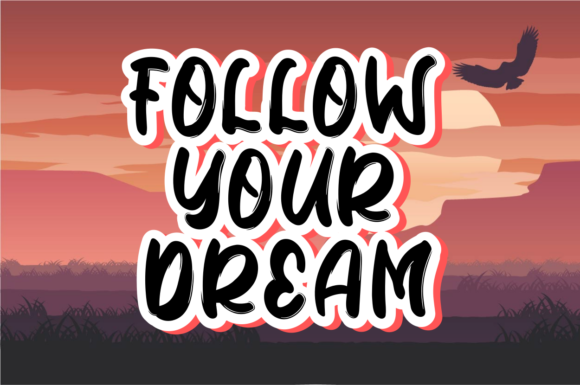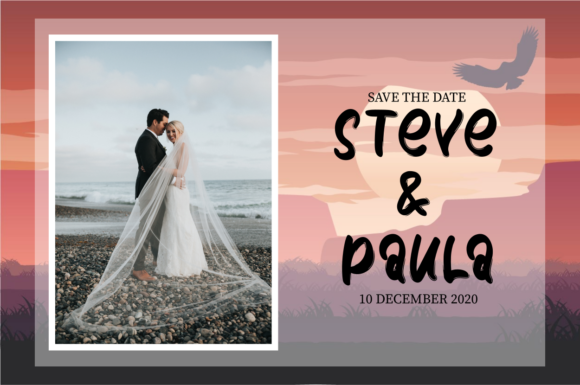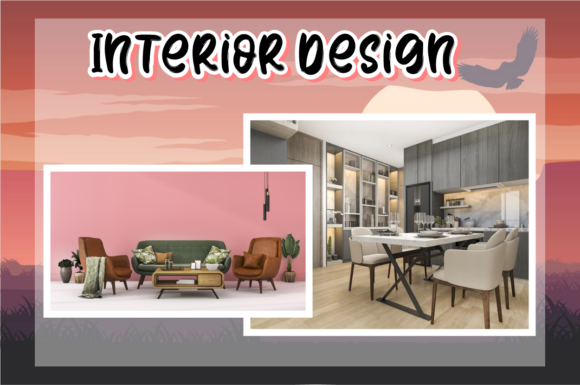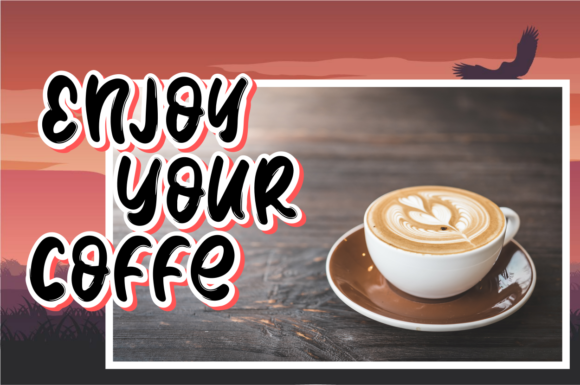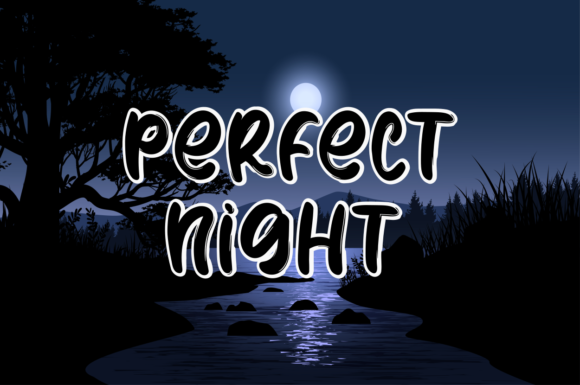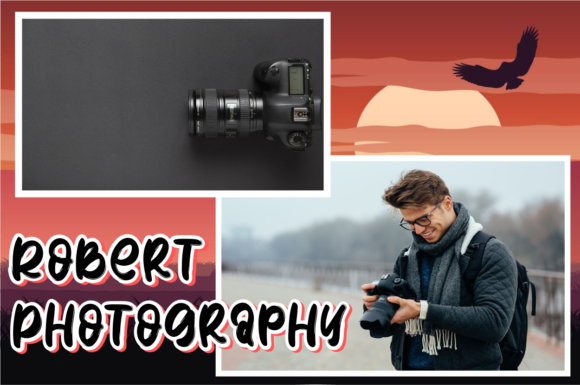
Discover the Charm of Good Cowboy Font: A Cute and Friendly Display Font
Are you looking for a font that can add a touch of youthful energy to your designs? Look no further than Good Cowboy, a cute and friendly display font that’s sure to make your projects come alive. In this article, we’ll explore the features and benefits of Good Cowboy, and show you how to make the most of this versatile and charming font.
What is Good Cowboy Font?
Good Cowboy is a display font that’s designed to bring a sense of fun and playfulness to your designs. With its chunky lettering and incredibly youthful feel, this font is perfect for projects that require a touch of whimsy and personality. Whether you’re working on a logo, a poster, or a social media graphic, Good Cowboy is sure to make a statement.
Key Features of Good Cowboy Font
- Cute and Friendly Design: Good Cowboy has a unique and charming design that’s sure to capture the attention of your audience. Its friendly and approachable feel makes it perfect for projects that require a personal touch.
- Chunky Lettering: The chunky lettering of Good Cowboy gives it a bold and playful look that’s sure to make your designs stand out.
- Youthful Energy: Good Cowboy has an incredibly youthful feel that’s perfect for projects that require a touch of energy and playfulness.
- Versatile: Good Cowboy is a versatile font that can be used for a wide range of projects, from logos and posters to social media graphics and more.
Benefits of Using Good Cowboy Font
So why should you choose Good Cowboy for your next project? Here are just a few benefits of using this charming font:
- Adds Personality to Your Designs: Good Cowboy is a font that’s full of personality, and it’s sure to add a touch of whimsy and fun to your designs.
- Perfect for Kids and Adults Alike: Good Cowboy is a font that’s suitable for projects aimed at both kids and adults. Its friendly and approachable feel makes it perfect for a wide range of audiences.
- Easy to Read: Despite its chunky lettering, Good Cowboy is a font that’s easy to read, even at smaller sizes.
- Great for Branding and Marketing: Good Cowboy is a font that’s sure to make your brand stand out. Its unique and charming design makes it perfect for branding and marketing projects.
How to Use Good Cowboy Font
So how can you make the most of Good Cowboy? Here are a few tips for using this versatile font:
- Use it as a Display Font: Good Cowboy is a display font that’s designed to make a statement. Use it as a headline or title font to add a touch of personality to your designs.
- Pair it with Other Fonts: Good Cowboy can be paired with a wide range of other fonts to create a unique and interesting look. Try pairing it with a sans-serif font for a bold and modern look.
- Experiment with Colors: Good Cowboy looks great in a wide range of colors. Experiment with different colors and combinations to find the one that works best for your project.
Good Cowboy is a cute and friendly display font that’s sure to add a touch of youthful energy to your designs. With its chunky lettering and incredibly youthful feel, this font is perfect for projects that require a touch of whimsy and personality. Whether you’re a designer, crafter, or DIY enthusiast, Good Cowboy is a font that’s sure to inspire your creativity and bring your projects to life.